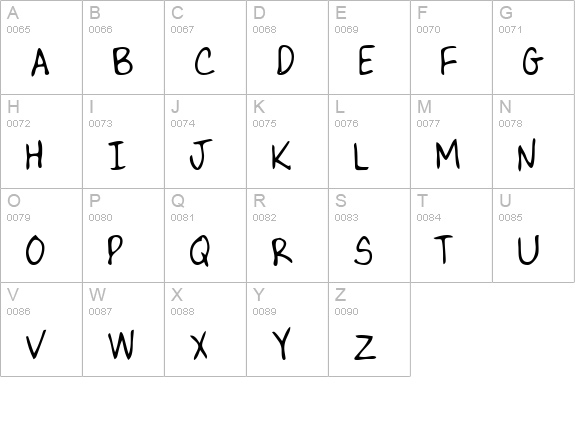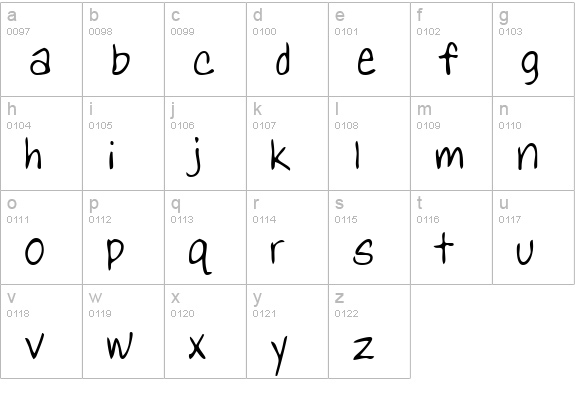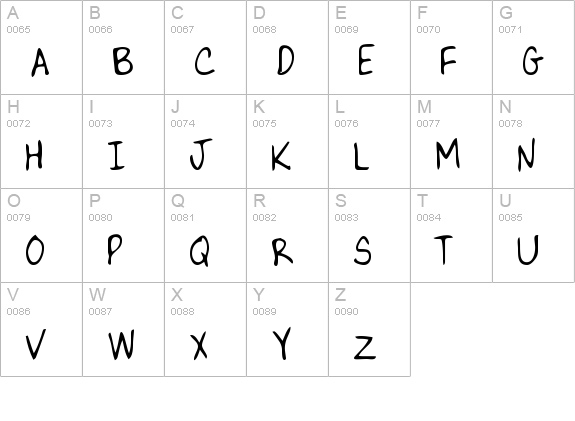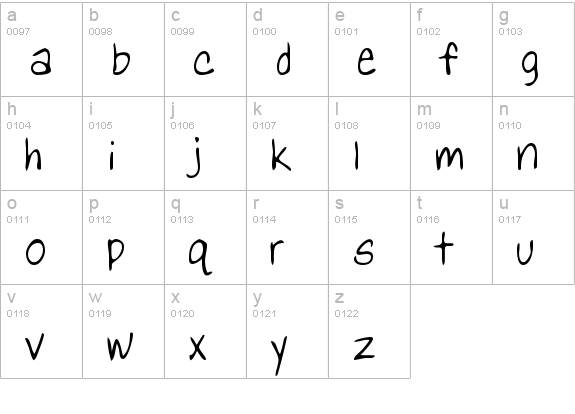
YanksHand Regular Font Details
YanksHand Regular is the standard, neutral variant in the YanksHand typeface family \xE2\x80\x94 well suited to general body text, paragraphs, and standard typographic work.
YanksHand Regular font is a charming and playful typeface that exudes a sense of friendliness and creativity. With its hand-drawn style and unique character shapes, this font is perfect for adding a personal touch to your designs. Whether you're working on invitations, posters, logos, or any other project that requires a touch of whimsy, YanksHand Regular is sure to make a statement. And the best part? YanksHand Regular font is completely free to download at FontsMarket.com. Simply visit the website and add this delightful font to your collection without spending a dime. Don't miss out on the opportunity to enhance your designs with this fantastic font that is both stylish and cost-effective. Download YanksHand Regular today and let your creativity shine!